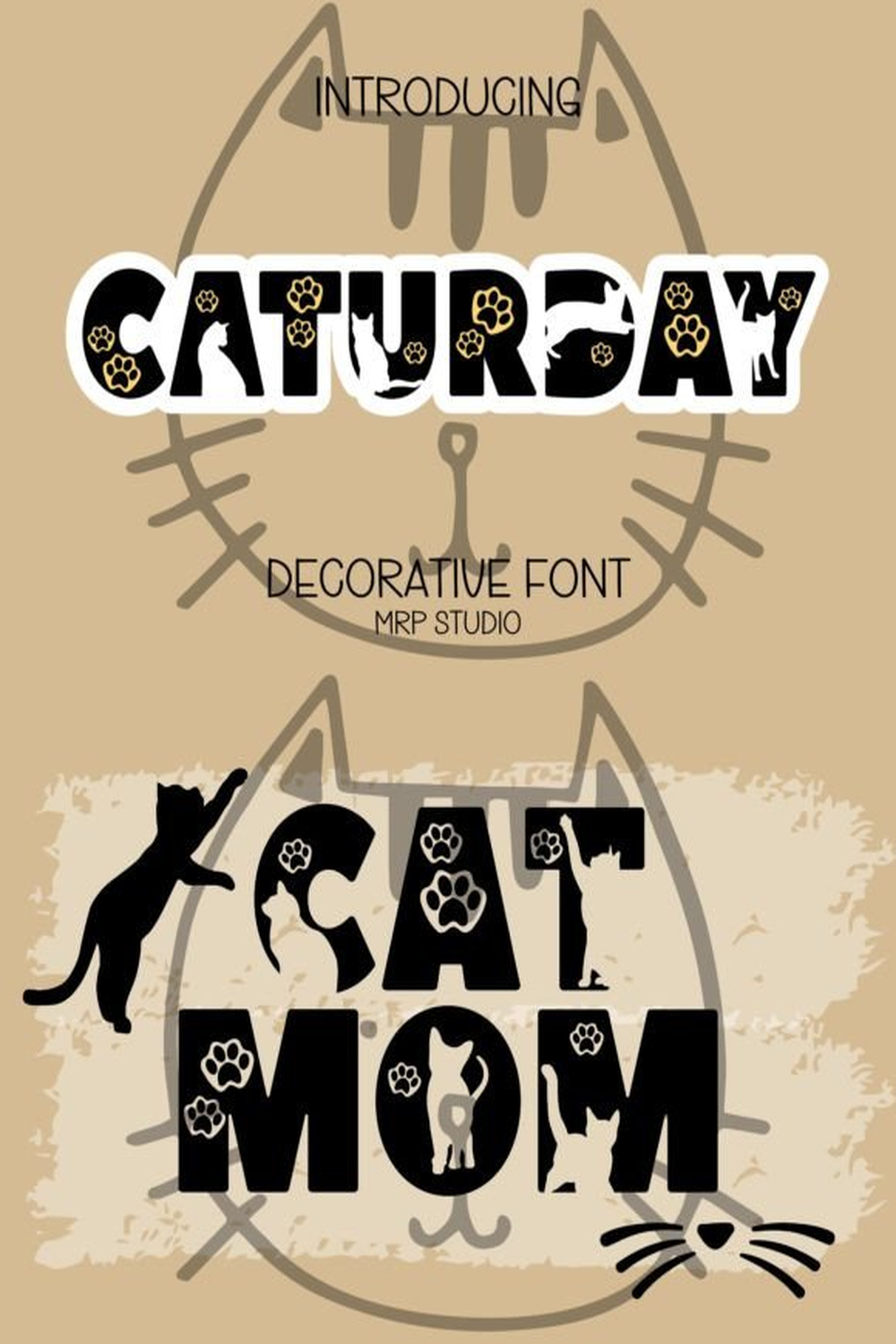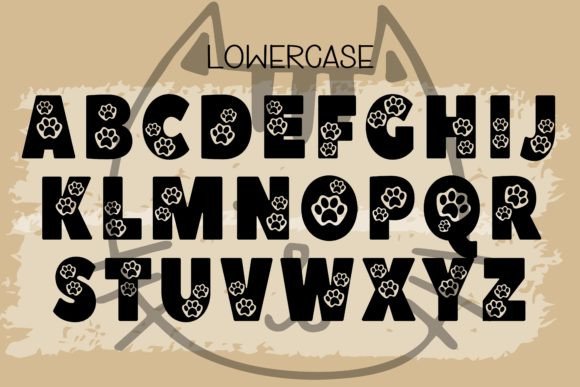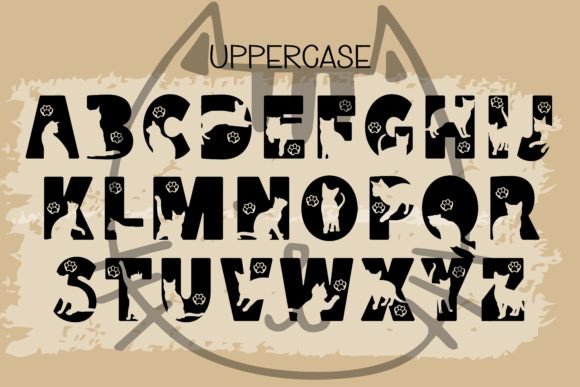
Caturday Font: A Playful Decorative Font for Cute DIY & Cricut Designs
About the Caturday Font
From logos to headlines, the Caturday Font is the perfect choice for making a lasting impression. Caturday is an attractive and unique decorative font that features adorable cat silhouettes and paws, creating a playful and charming design. Its whimsical details and delightful shapes make it perfect for anything cat-related, from pet products and services to children’s books and social media graphics. Ideal for adding a touch of fun and personality to any project.